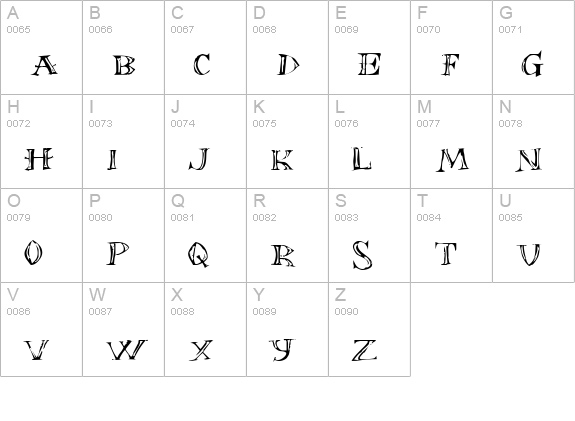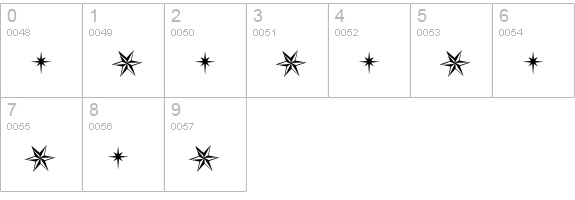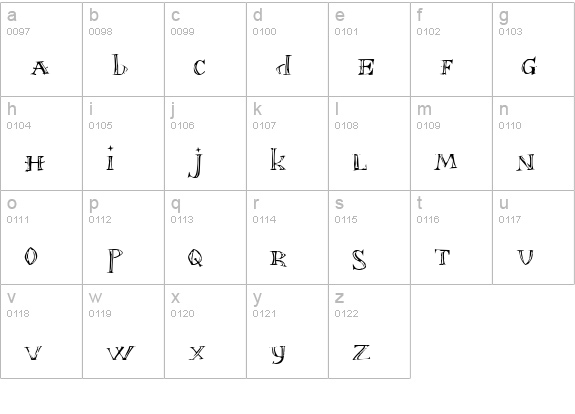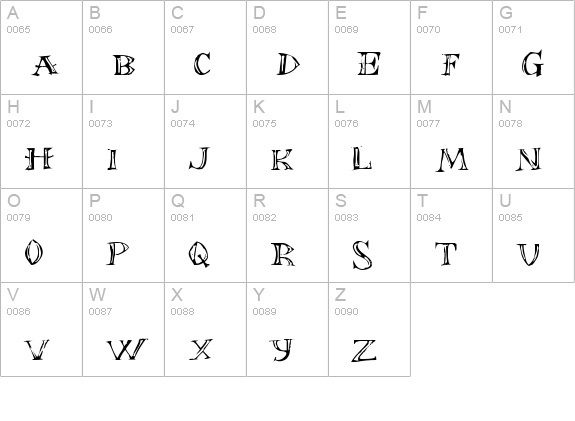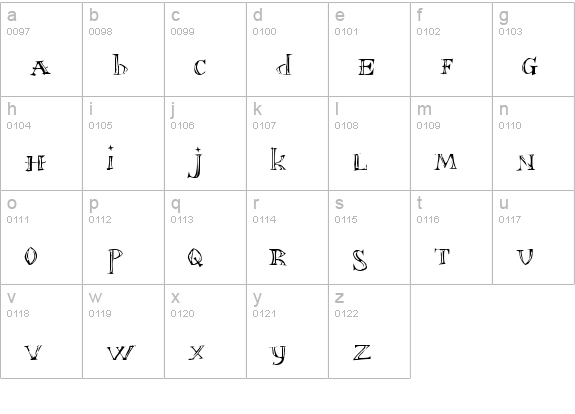
Font in a Red Suit (The Christmas Font) Font Details
Font in a Red Suit (The Christmas Font) is a festive and whimsical typeface that captures the essence of the holiday season with its playful design and cheerful flair. This font features charming holiday-inspired elements, such as candy cane stripes and snowflake accents, making it perfect for adding a touch of Christmas spirit to your projects. Best of all, Font in a Red Suit is available for free download at FontsMarket.com, allowing you to easily incorporate this delightful font into your holiday designs without any cost. Whether you're creating greeting cards, party invitations, or social media graphics, this font is sure to bring a joyful and festive vibe to your work. Spread the holiday cheer with Font in a Red Suit (The Christmas Font) today!